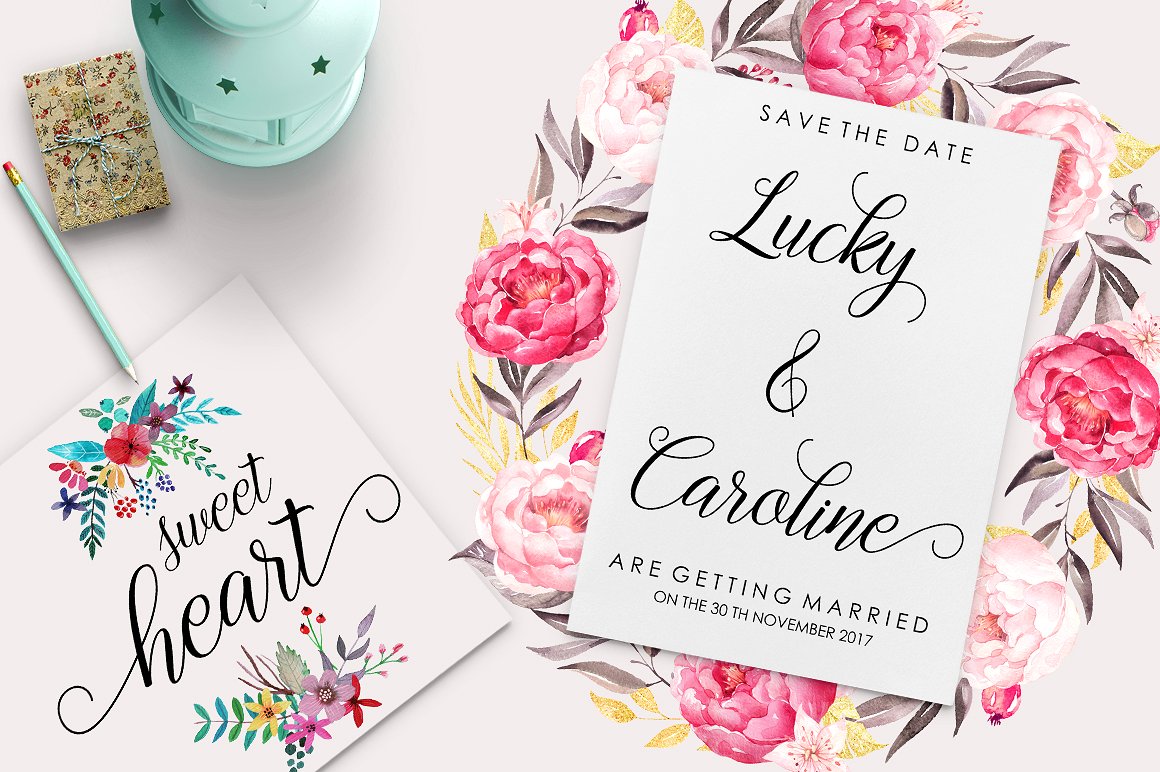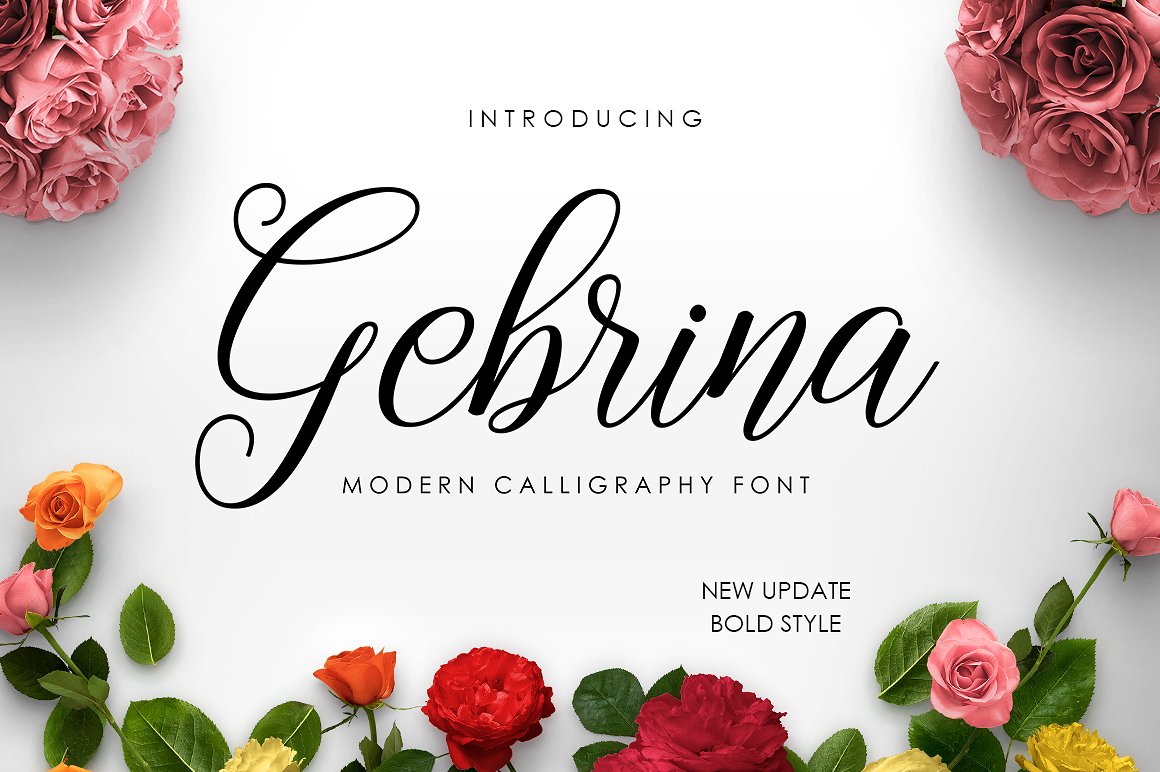
Gebrina Script
Gebrina Script Font
Gebrina Script is modern calligraphy design, including Regular and Bold. This font is casual and pretty with swashes. Can used for various purposes. such as logo, product packaging, wedding invitations, branding, headlines, signage, labels, signature, book covers, posters, quotes and more.